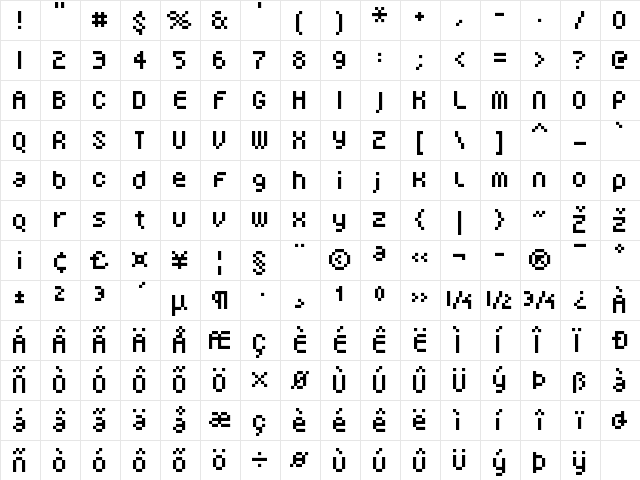
FFF Nadador Condensed Regular
| Foundry | Fonts For Flash |
| Designer | Fonts For Flash |
Design Context for FFF Nadador Condensed Typeface
FFF Nadador Condensed is a composed and adaptable typeface that performs quietly and consistently across a wide range of design contexts. The condensed width makes it efficient for tight spaces without sacrificing legibility.